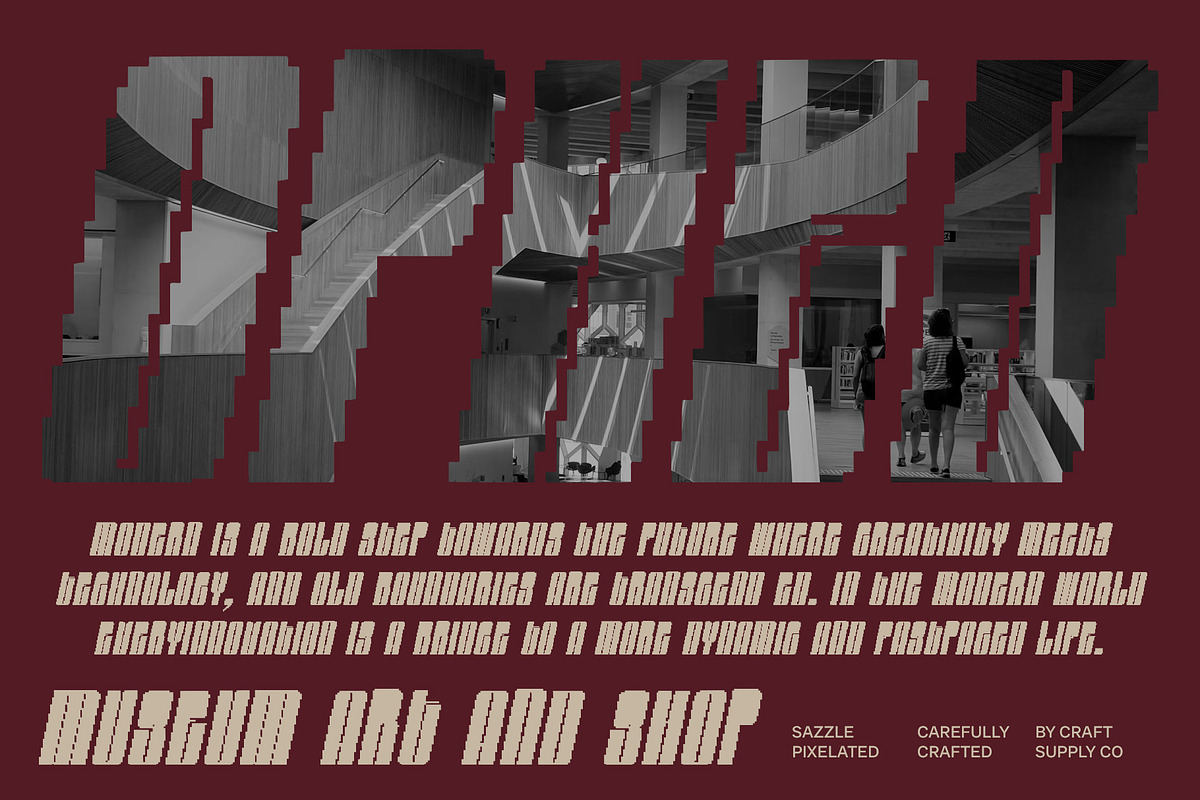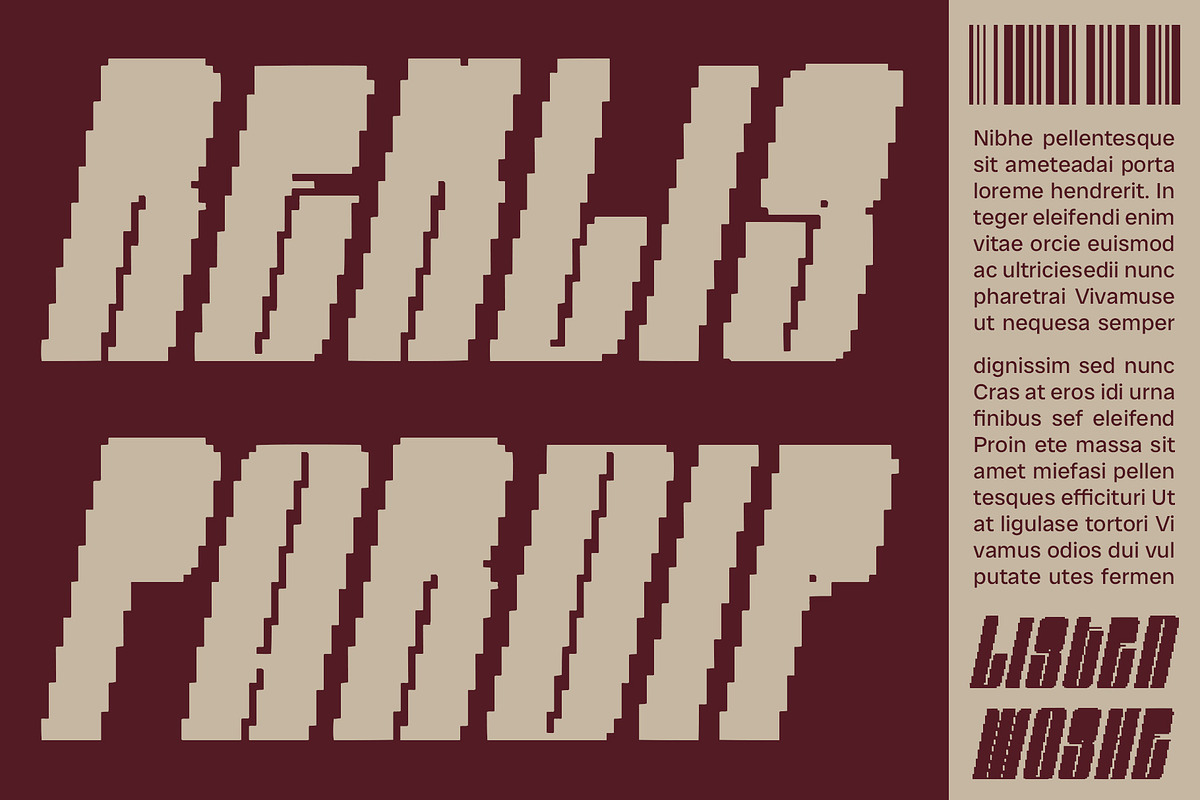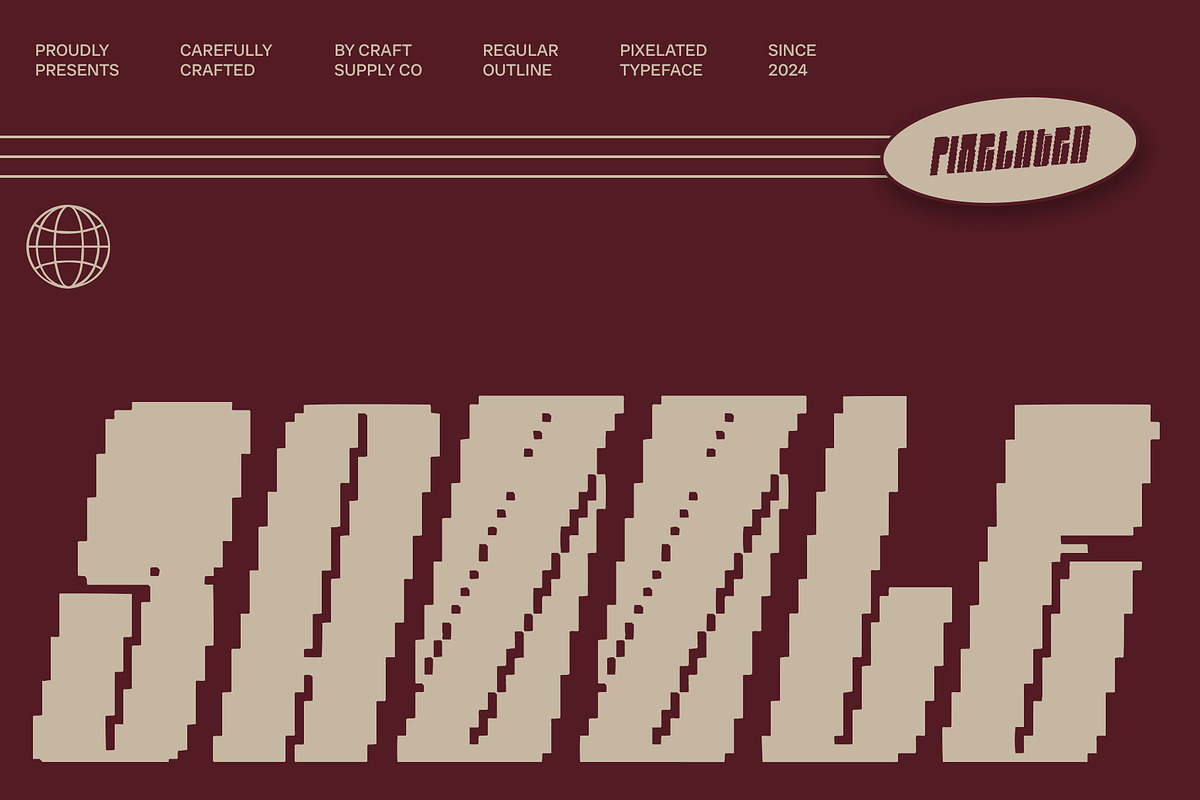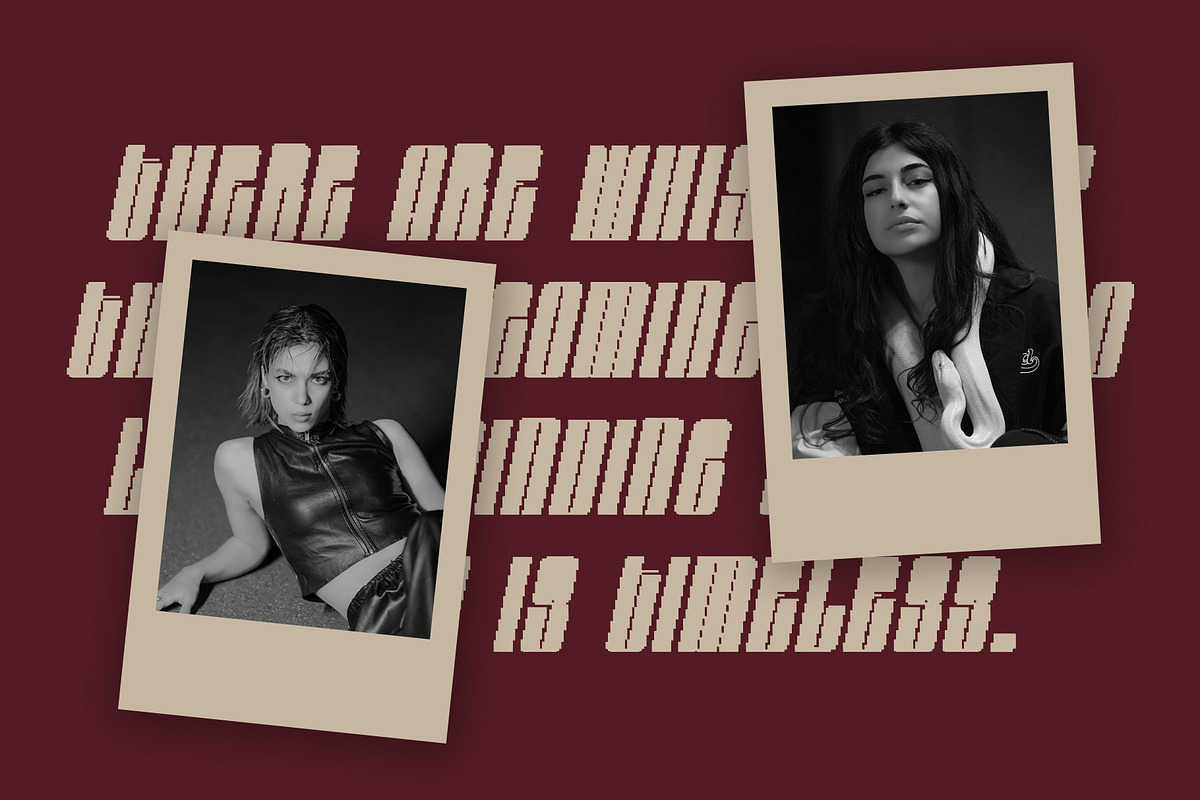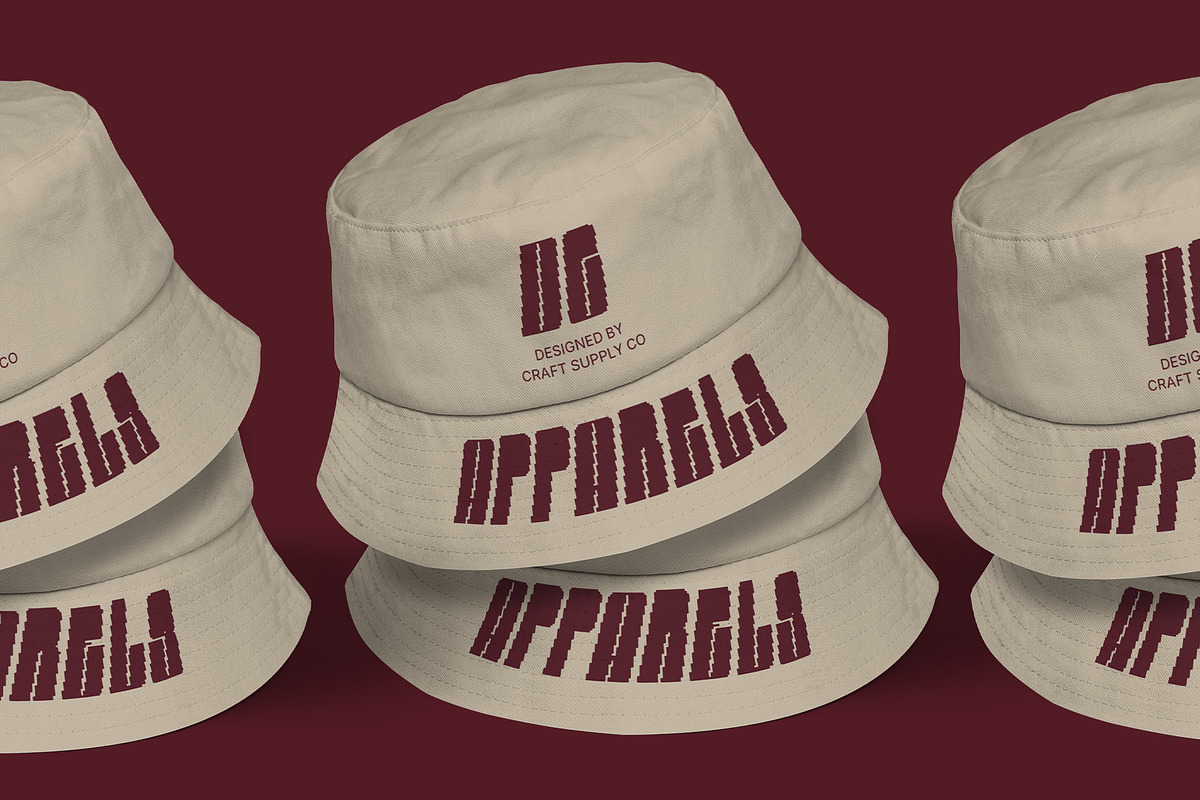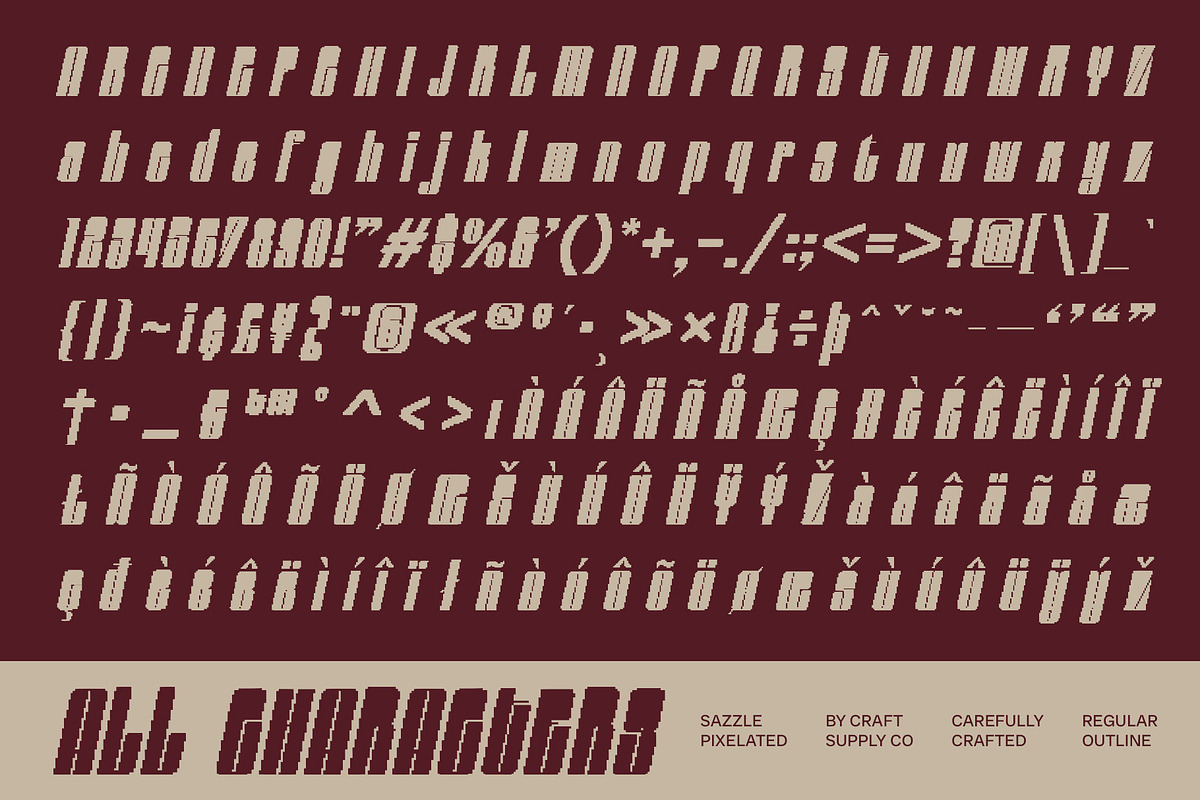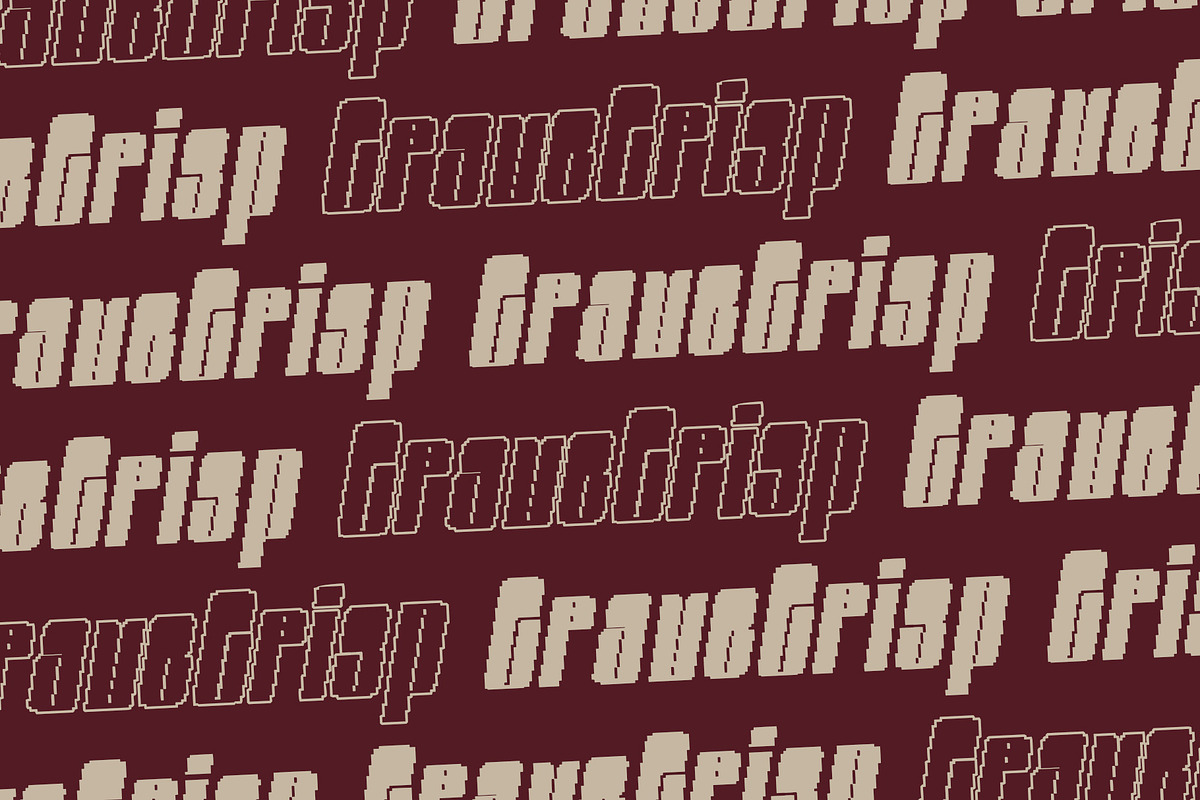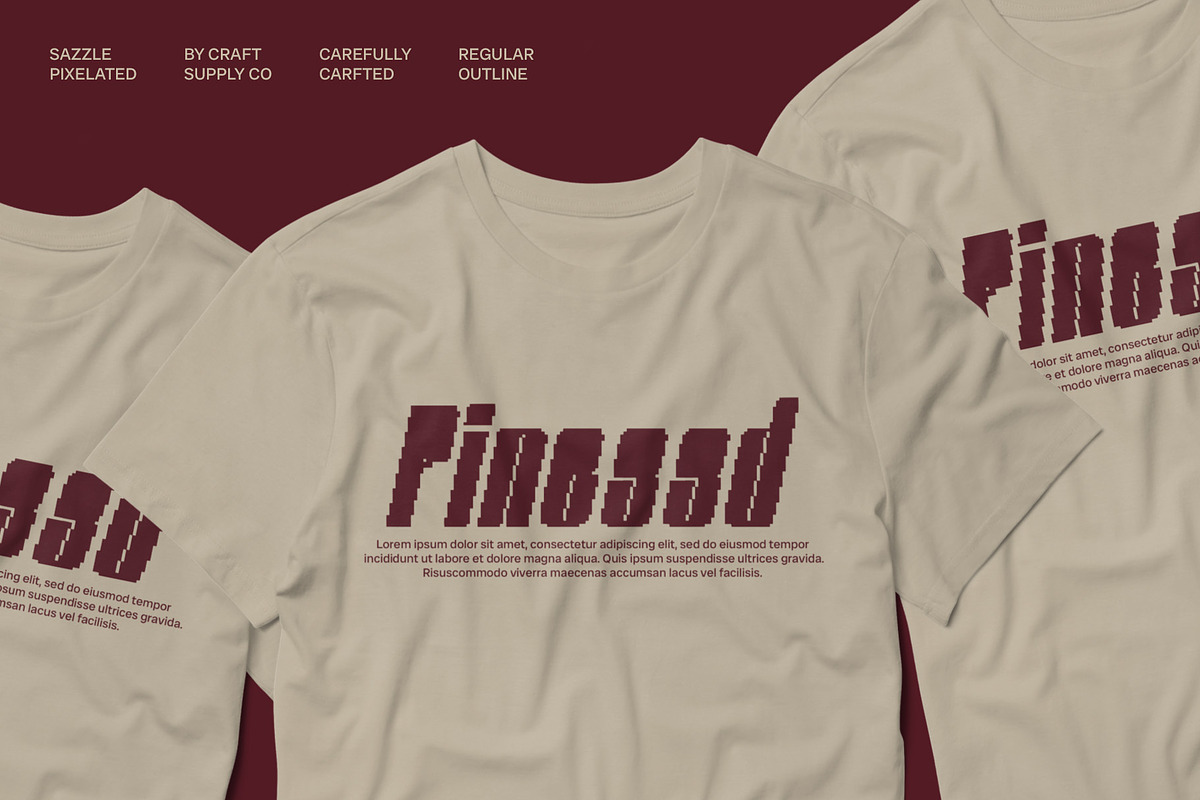
Sazzle Pixel
Sazzle Pixel Font – Bold Modern Sans-Serif with Retro Digital Flair
Bold and Condensed Shape for Strong Impact Sazzle Pixel is a modern sans-serif font characterized by its bold, condensed shape, designed to make a powerful visual statement. The bold letters enhance readability and visual impact, while the condensed form ensures space efficiency, making it ideal for various design applications where every inch counts.
Retro Pixel Effect for a Digital Edge The font’s pixel effect introduces a retro digital touch, evoking the early days of computer graphics with its distinctive small blocks. This pixelated detail adds a nostalgic yet futuristic dimension to the font, blending classic digital aesthetics with contemporary design.
Futuristic and Characterful Design Combining bold, condensed styling with a pixelated effect, Sazzle Pixel delivers a strong, futuristic look perfect for technology branding, event posters, and modern web design. Its unique blend of boldness and retro charm ensures it stands out in any setting, offering both a dynamic appearance and practical versatility.
- Sazzle Pixel Regular
- Sazzle Pixel Outline